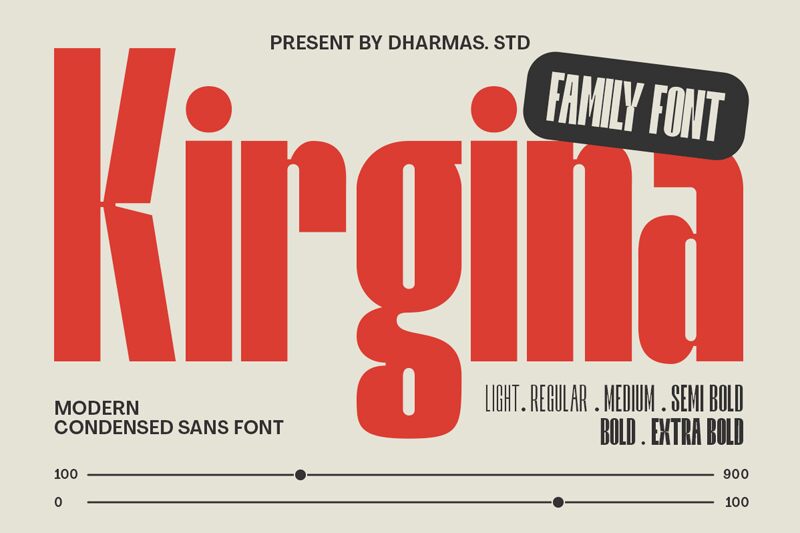
Kirgina DEMO Extra Bold
Kirgina Extra Bold font made by Dharmas Studio has a geometric design inspired by classic and modern sans-serif stylistics. It’s special character is shaped with high contrast, mostly vertical stress axis, modern look, dramatic feel and block-like shapes help to give the final result something unique. These each qualities impart a confident message as well as the ability to increase impact.
This is bold typographic voice which was crafted for poster art, headlines in smart books & magazines that covers from travel to fashion on paper or screen based mediums. It matches well with packaging design where making an impression matters most like coffee brands!